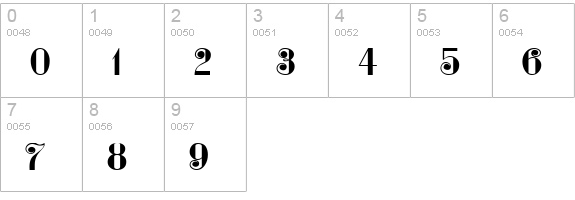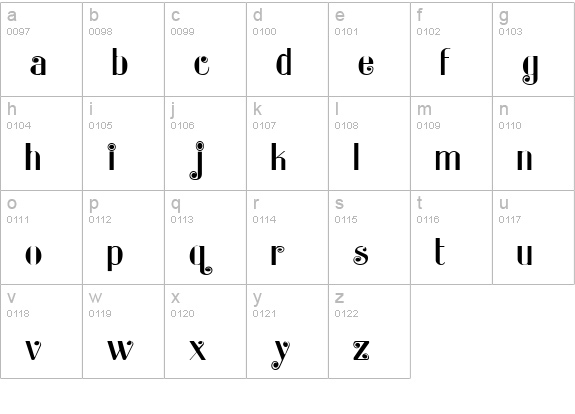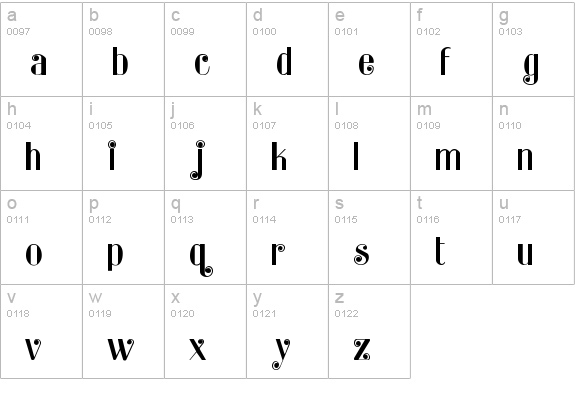
Katarina Font Details
Introducing the captivating Katarina font, a stunning typeface that effortlessly combines traditional elegance with a modern twist. With its delicate curves and graceful strokes, Katarina is the perfect choice for adding a touch of sophistication to any design project. This versatile font is ideal for a wide range of applications, from branding and packaging to invitations and editorial layouts. Its timeless appeal makes it suitable for both formal and informal settings, ensuring that your message is conveyed with the utmost style and grace. What sets Katarina font apart is not only its aesthetic beauty but also its accessibility. As a free font, it provides designers and creatives with the opportunity to elevate their work without the burden of cost. Whether you're a seasoned professional or just starting out, Katarina font offers a high-quality, visually pleasing option that won't break the bank. Downloading Katarina font is a breeze, as it is freely available at FontsMarket.com. This reputable platform ensures a seamless and secure experience, allowing you to effortlessly incorporate this captivating font into your projects. With just a few clicks, you can unlock the potential of Katarina font and take your designs to new heights. So why wait? Embrace the timeless beauty and accessibility of Katarina font today. Download it for free at FontsMarket.com and let your creativity soar. Whether you're crafting a logo, designing a poster, or creating a wedding invitation, Katarina font will undoubtedly leave a lasting impression with its exquisite design and effortless charm.